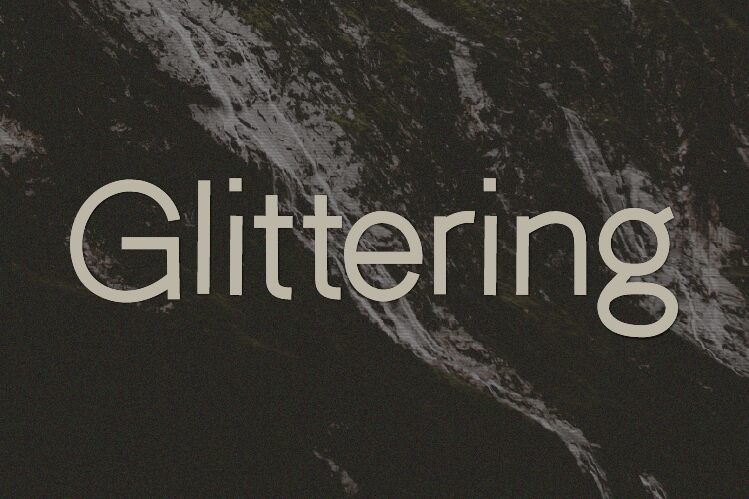
Glittering is a free font family designed by Hanna Bie with modern, minimalist, and geometric influences. Delivered in 2 font styles, this professional font combines fancy elements into an admirable sleek design. It is a useful font in any graphic designer’s library that can help take contemporary applications and typography projects to new levels.
Use Glittering in technology branding, editorial design, and other corporate identities. You might also find it satisfying in web or mobile app designs, magazine covers, and any other creative projects. Adding this font to merchandise and fashion branding, music and hobby blogs, packaging, or any product advertised through social media.